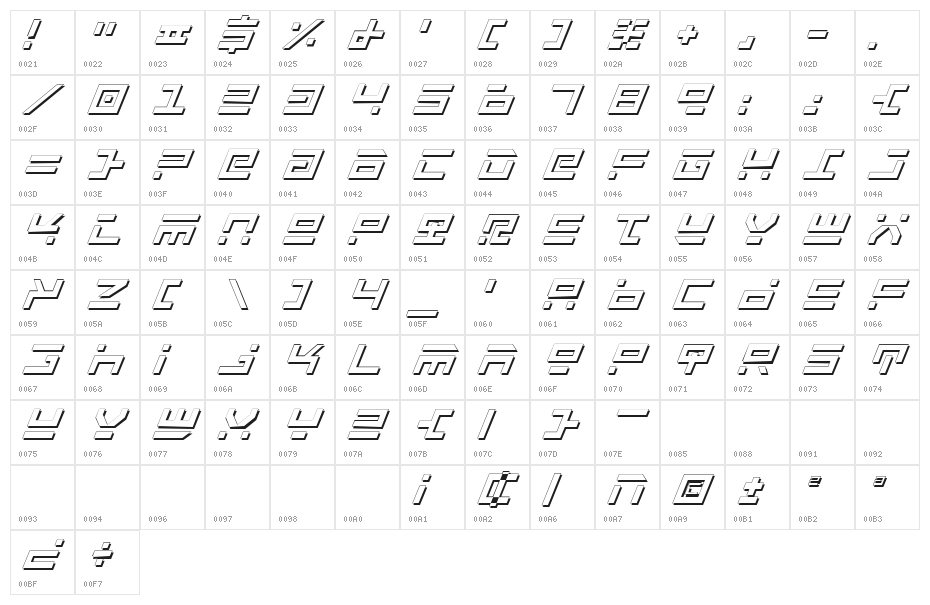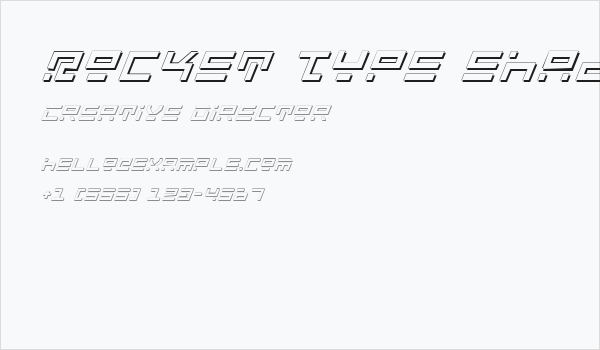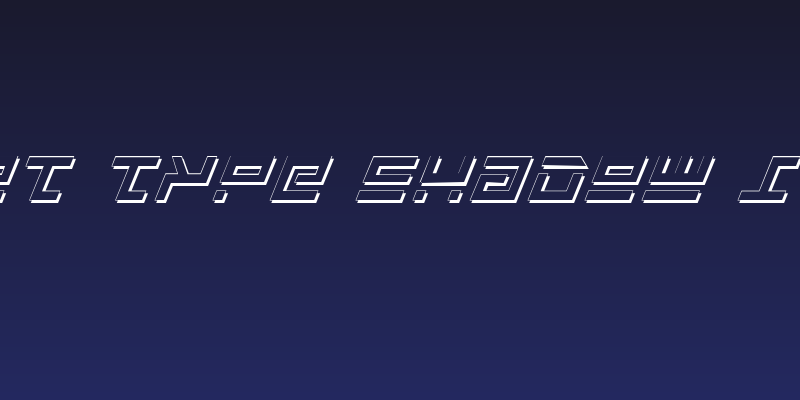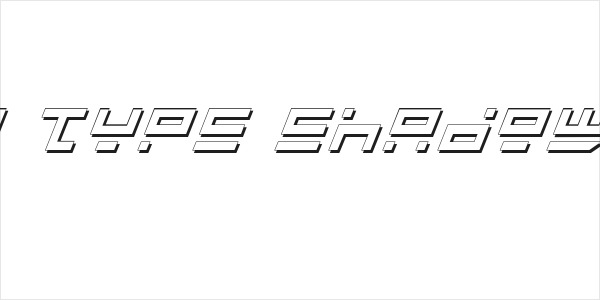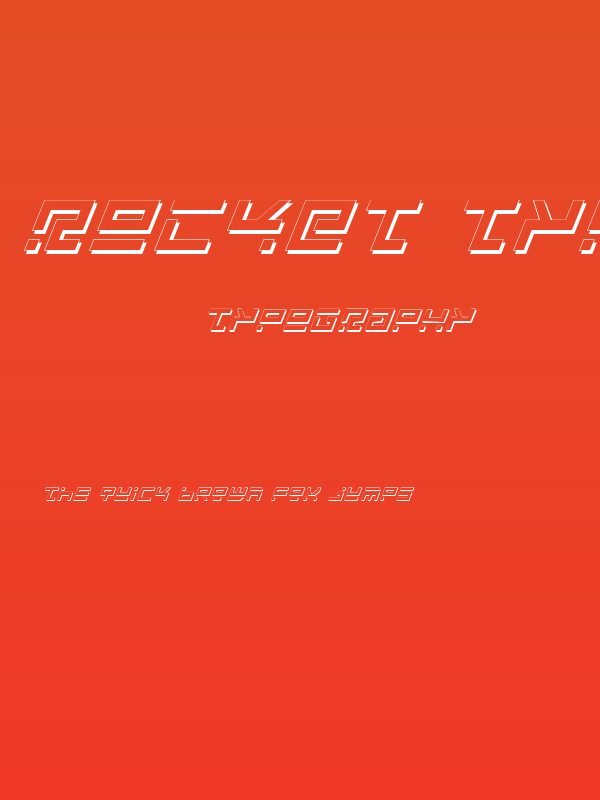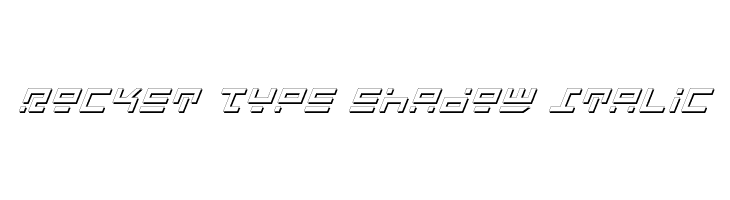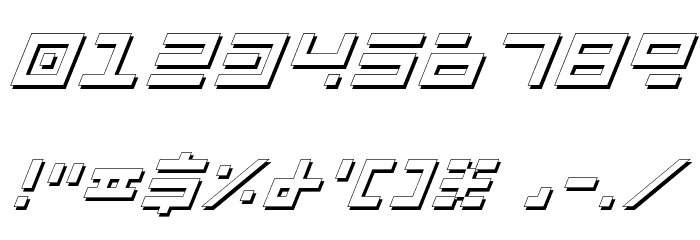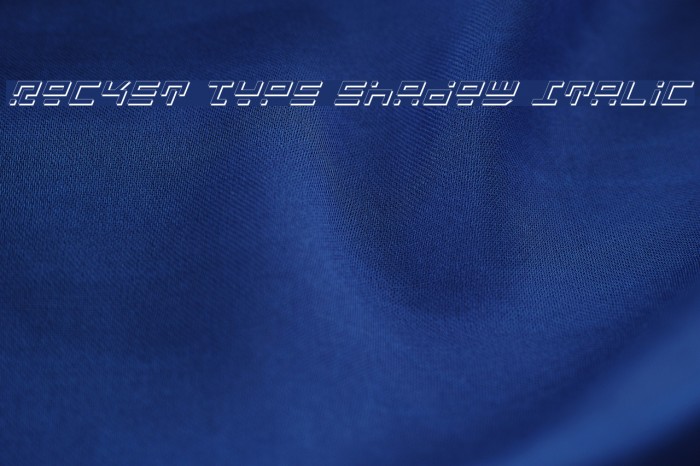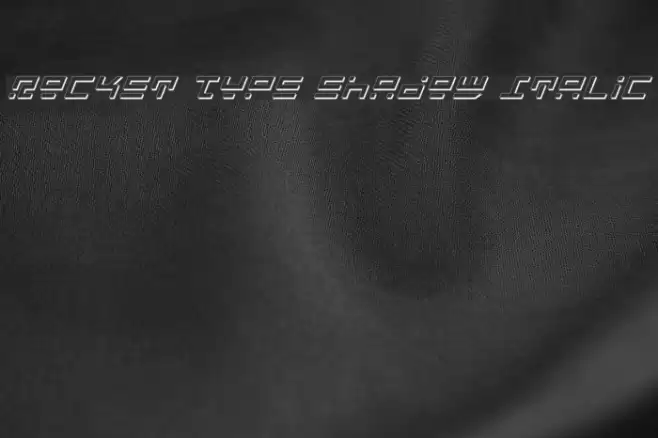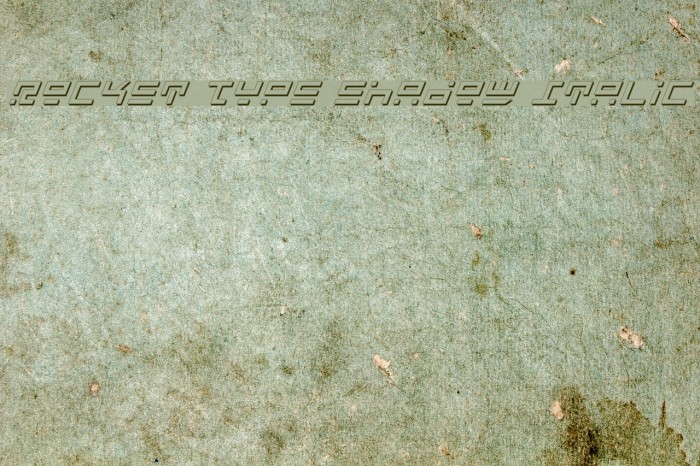
Rocket Type Shadow Italic Font
Rocket Type Shadow Italic Description
This font features a futuristic and dynamic design with a shadow effect that gives it a three-dimensional appearance. The characters are italicized, adding a sense of motion and speed. The geometric shapes and sharp angles contribute to its modern and tech-inspired aesthetic. Each letter is outlined, creating a bold and eye-catching look. The font maintains consistency in style across uppercase, lowercase, numbers, and special characters, making it versatile for various design needs.
| Proposed Projects | Ideal for sci-fi themed projects, tech branding, video game titles, and futuristic posters. |